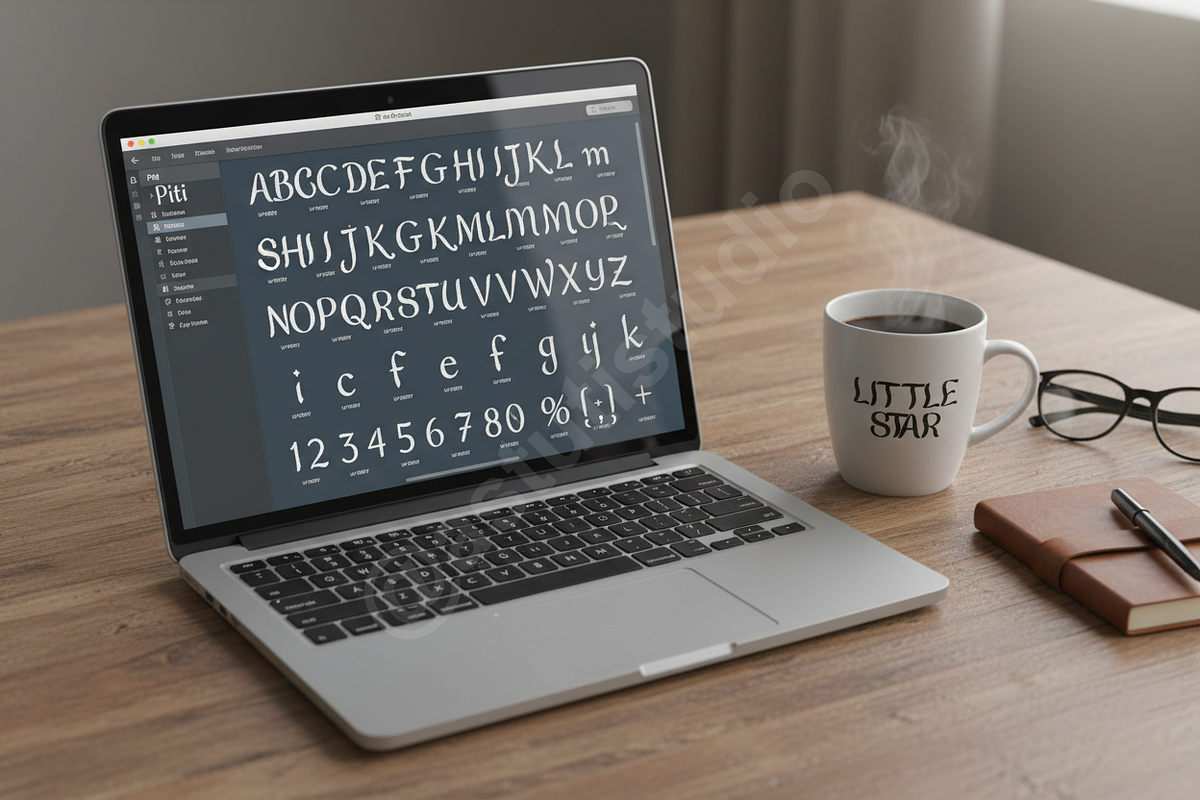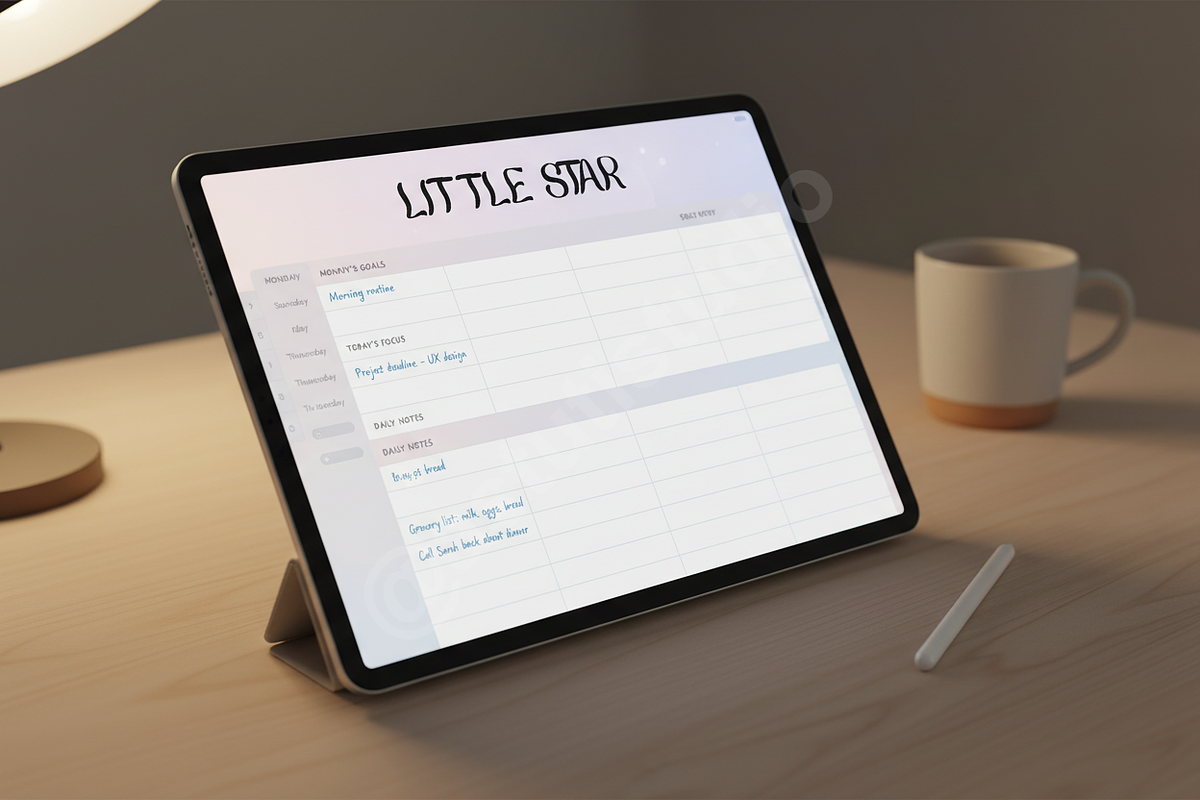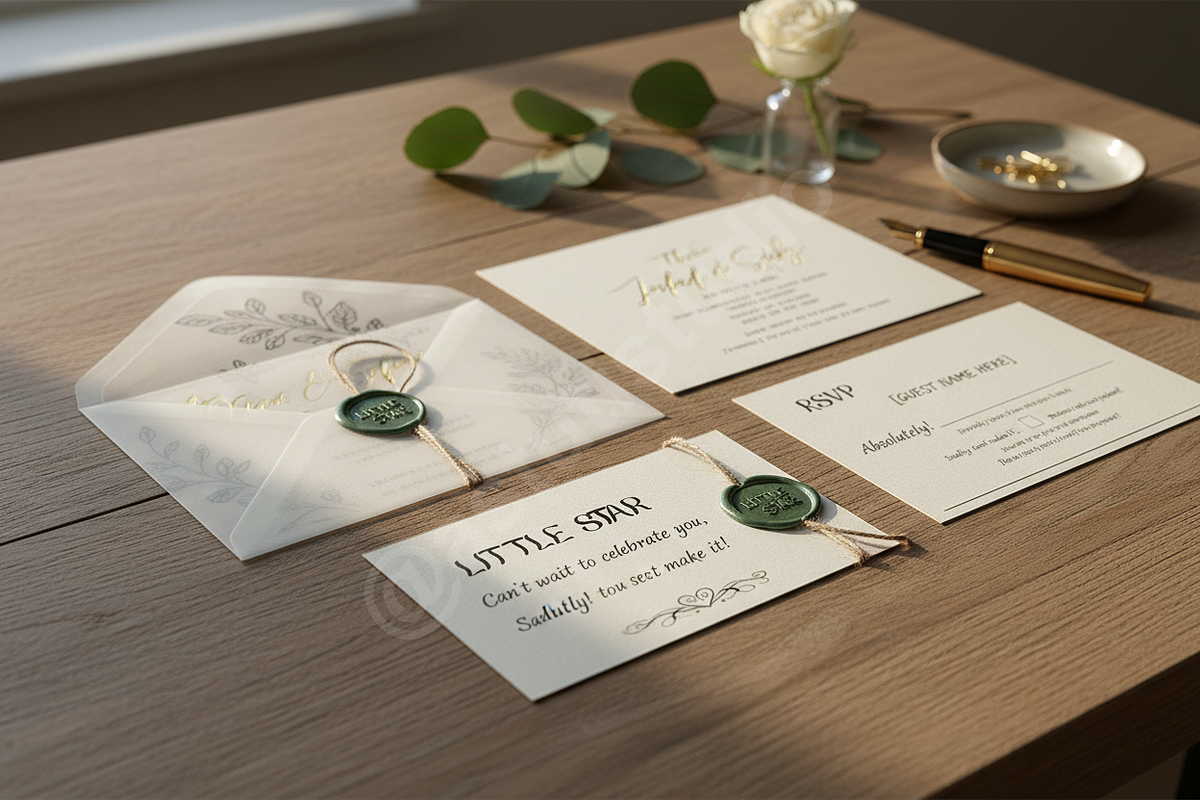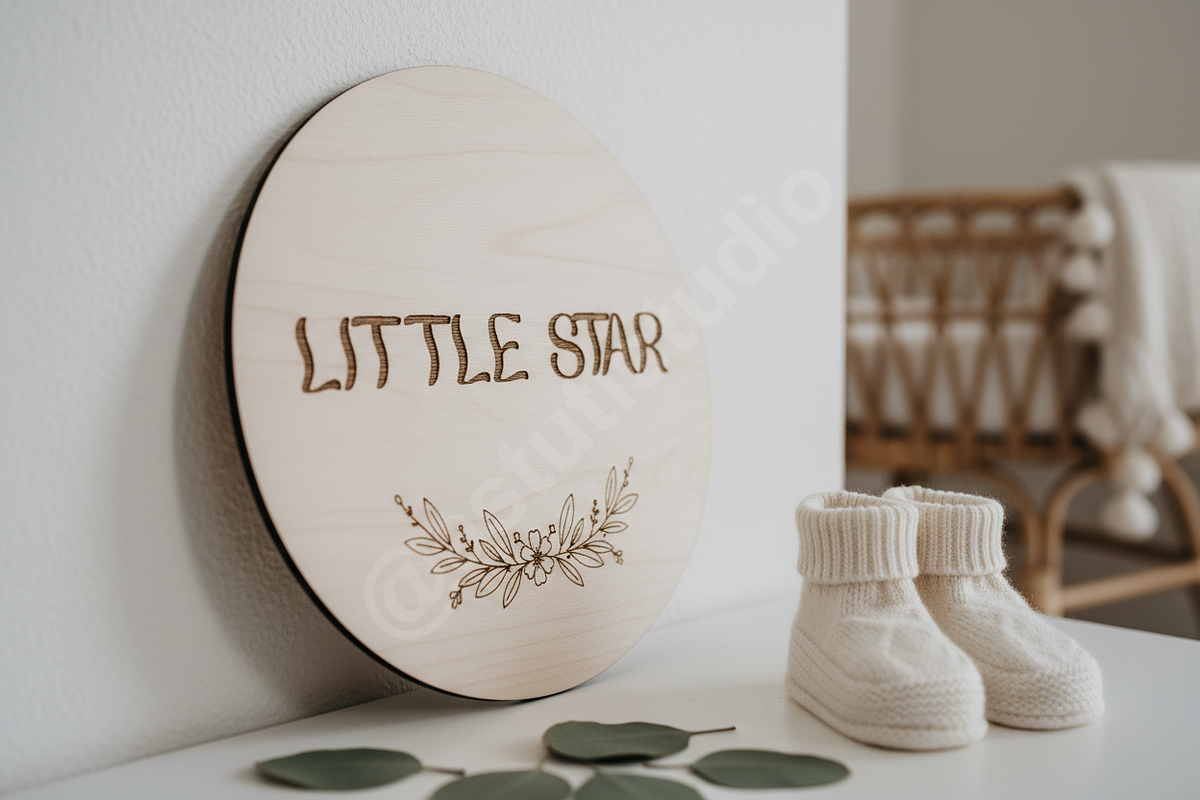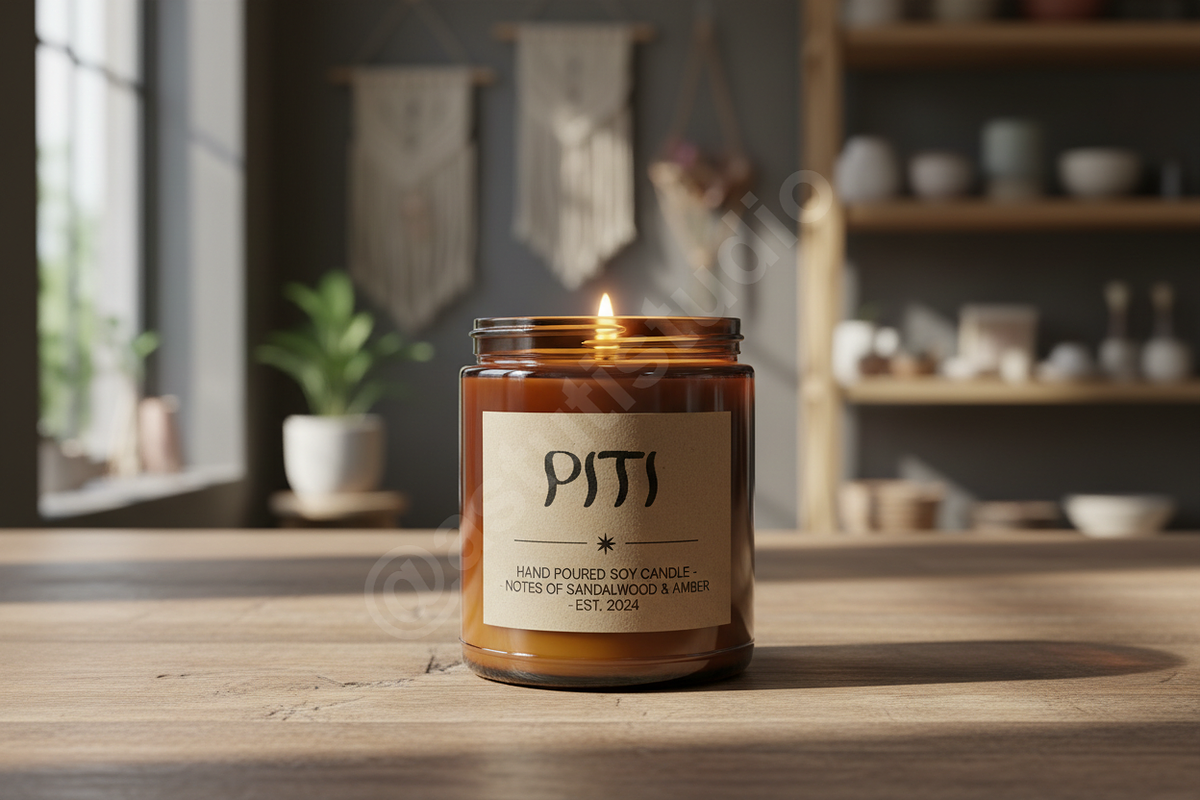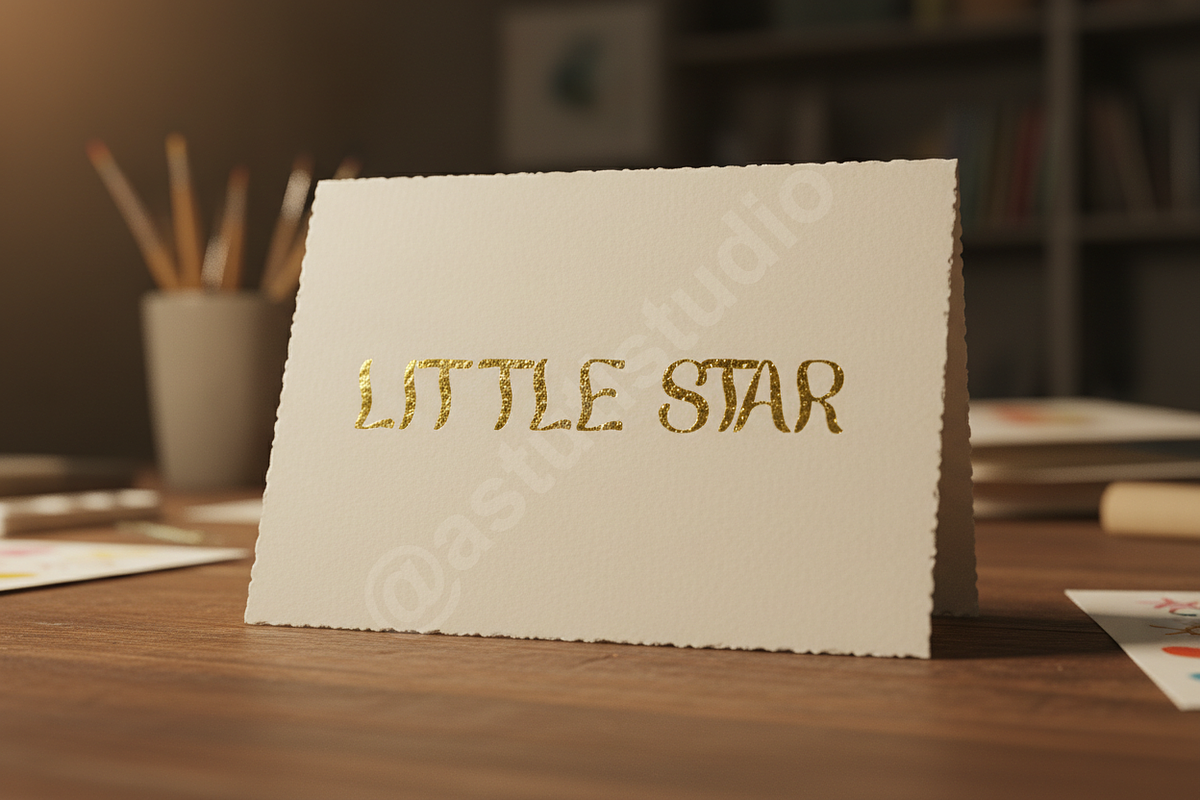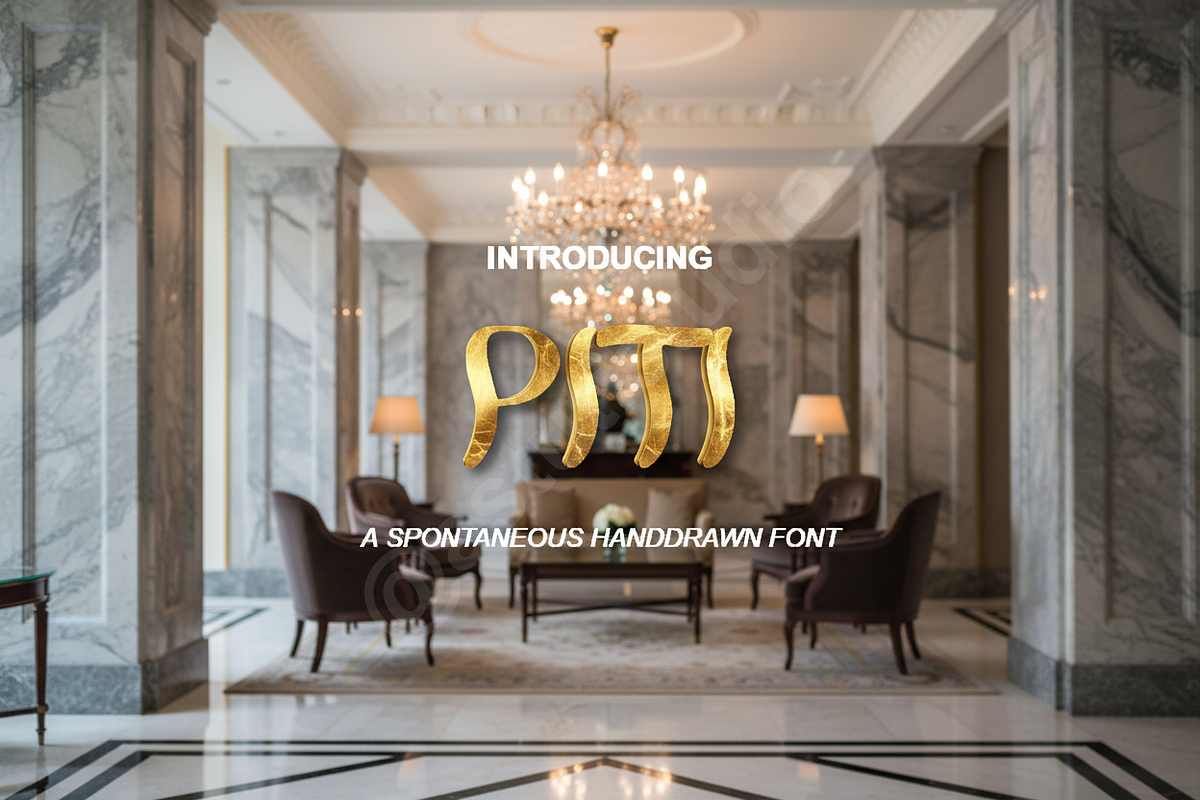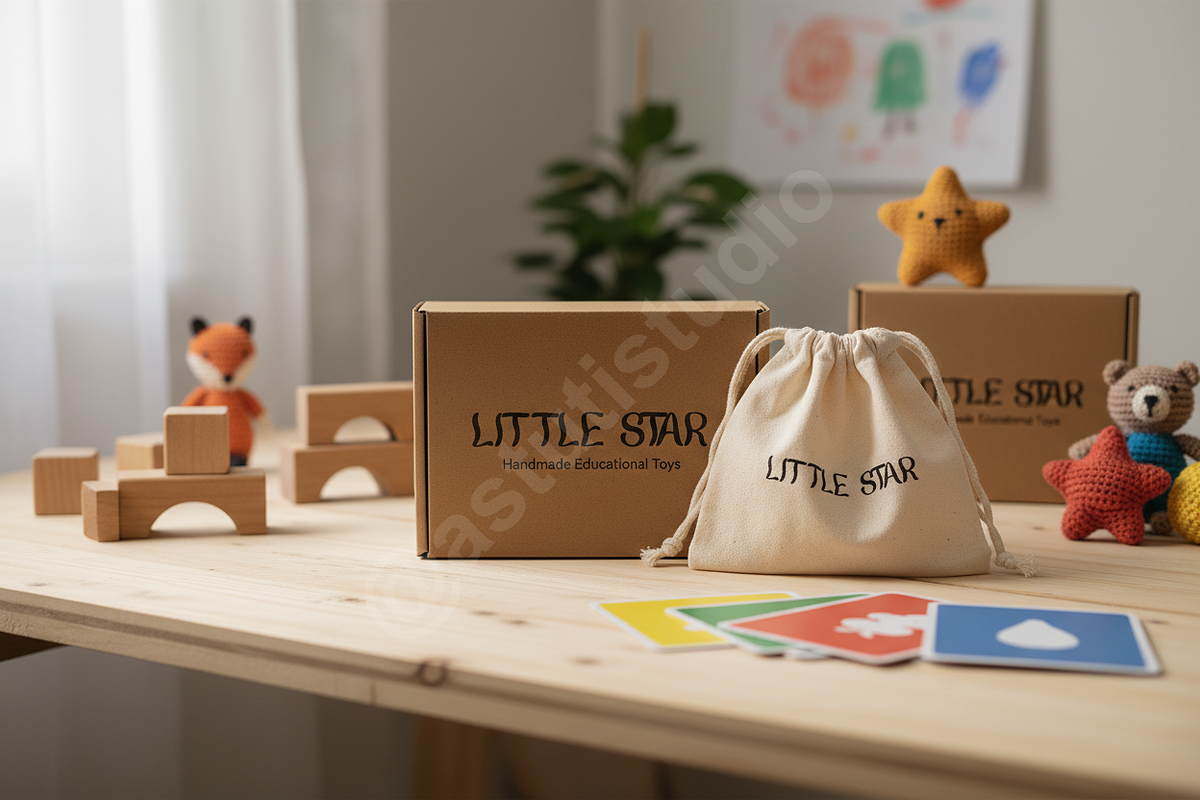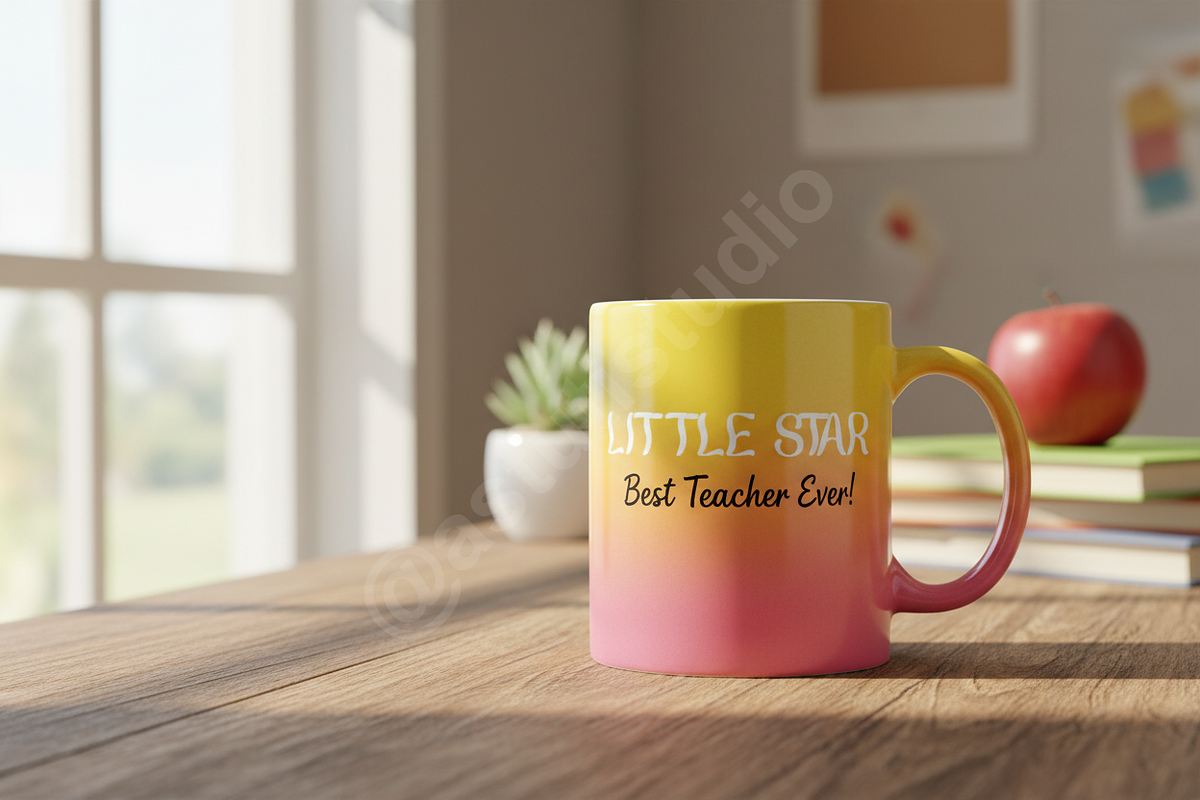
Piti | Modern Minimalist Serif Typef
Piti is a premium serif typeface meticulously crafted to bring a touch of timeless elegance to your creative projects. Designed with a focus on balance and sophistication, it bridges the gap between classic editorial aesthetics and modern minimalist design. Whether you are building a luxury brand identity or designing a high-end fashion magazine, Piti provides the professional edge your work deserves.
- High-contrast letterforms for a refined, upscale aesthetic
- An extensive collection of unique ligatures and stylistic alternates
- Comprehensive multilingual support for international projects
- Expertly optimized kerning for effortless professional typesetting
- Designed specifically for luxury branding, editorial layouts, and high-impact social media assets
- Full set of uppercase and lowercase characters
- Comprehensive numerals, punctuation, and symbol sets